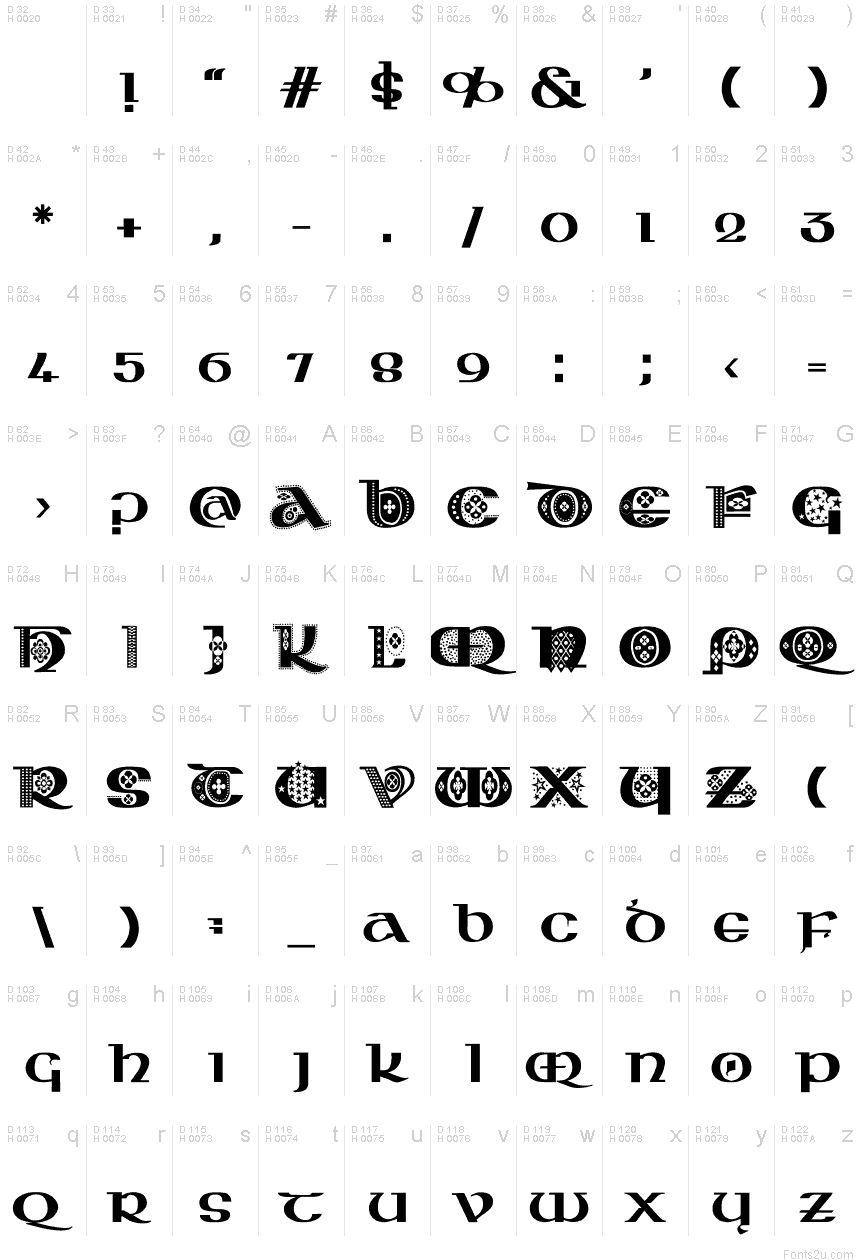
Kingthings Kelltika
Kingthings Kelltika font by Kevin King is a free decorative retro display typeface with a bold, storybook presence. Thick, inky strokes curve into sweeping tails, while dotted outlines and carved diamond details give each letter a beaded, Celtic-meets-carnival feel. It looks like it was pulled from an old pub sign or festival banner: tactile, ornate, and just a little bit mischievous.
Using Kingthings Kelltika, your titles instantly feel handcrafted and celebratory, so it shines on fantasy book covers, folk or music festival posters, game logos, themed menus, packaging for craft drinks, and vintage-flavored branding. Keep this free font large and let the decorative caps do the talking, then pair it with a clean sans-serif for supporting text to keep everything readable and grounded.
Uncial derivative